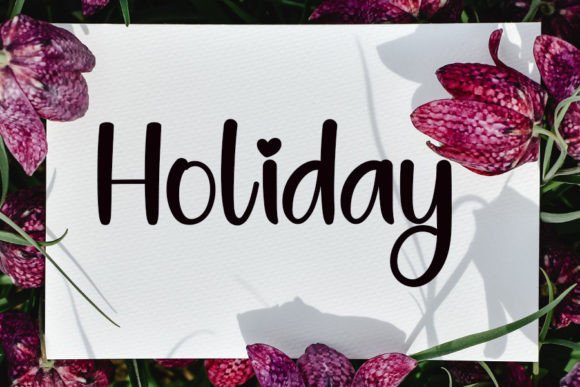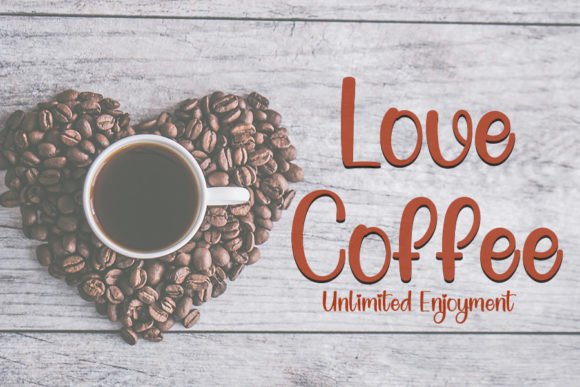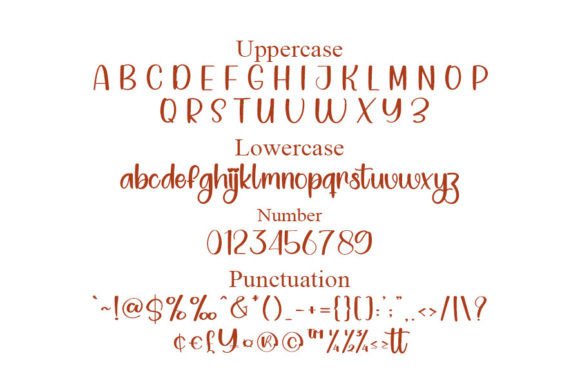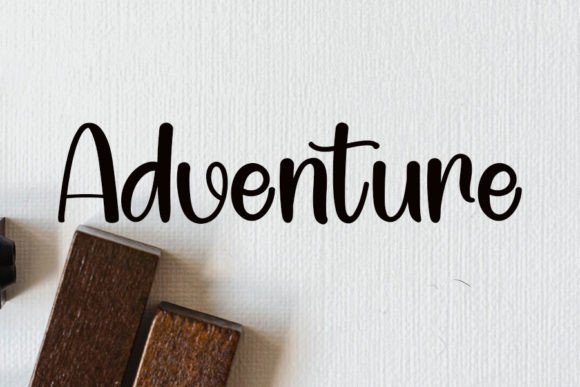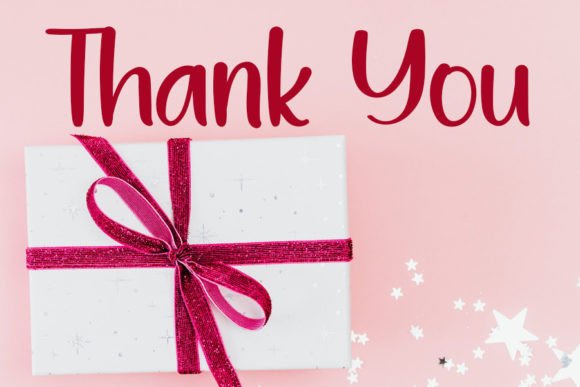
Simple Paper Font
A Trendy Handwritten Script with Timeless Elegance
Simple Paper Font is a trendy handwritten script that merges a contemporary atmosphere with the elegance of timeless classic calligraphy. With its impeccable form and balanced strokes, this font is designed to bring a refined and sophisticated touch to any of your design projects. Whether you’re creating wedding invitations, logos, branding materials, or social media content, the Simple Paper Font adds a romantic and elegant flair to your designs.
Perfect for Wedding Invitations and Special Occasions
For wedding invitations and other special occasion stationery, the Simple Paper Font is an ideal choice. Whether you’re designing RSVP cards, thank-you notes, or save-the-dates, this font provides an elegant, romantic touch to your designs. Its classic calligraphy-inspired strokes bring a sense of luxury and timeless beauty, making it perfect for weddings, anniversaries, and other special events. The Simple Paper Font ensures your special occasion materials are both charming and sophisticated.
Ideal for Logos and Branding Projects
For logos and branding projects, the Simple Paper Font offers a unique, refined style that enhances your brand identity. Whether you’re designing a luxury brand logo, personal brand, or corporate materials, this font adds an artistic, premium feel to your branding. The Simple Paper Font is ideal for businesses in industries like fashion, beauty, and lifestyle, providing a distinctive, elegant touch that helps your brand stand out.
Great for Greeting Cards and Invitations
For greeting cards and invitations, the Simple Paper Font adds a romantic and timeless touch to your designs. Whether you’re creating birthday cards, thank-you notes, or holiday greetings, this font ensures your cards look luxurious and personalized. Its delicate strokes and beautiful form make it perfect for both formal and casual occasions, ensuring your designs leave a lasting impression with their elegance and sophistication.
Ideal for Product Packaging and Labels
For product packaging and labels, the Simple Paper Font adds a premium, refined look to your designs. Whether you’re designing product labels, gift packaging, or seasonal items, this font adds a personalized and elegant touch to your branding. The Simple Paper Font is perfect for luxury products, artisan goods, and custom gifts, ensuring your products stand out with an exclusive and timeless appeal.
Versatile, Legible, and Elegant
Despite its delicate handwritten design, the Simple Paper Font remains legible and easy to use. Its well-spaced characters and consistent strokes ensure that your text remains clear and readable, even for longer passages or smaller sizes. Whether you’re using it for headlines, captions, or body text, this font strikes the perfect balance between creativity and readability, making it suitable for a wide range of design applications, from print to digital media.
Add Elegance and Timeless Beauty to Your Designs with Simple Paper Font
If you’re looking for a stylish handwritten font that adds a romantic, elegant touch to your designs, the Simple Paper Font is the perfect choice. Whether you’re designing wedding invitations, logos, greeting cards, or social media posts, this font will help you create memorable, refined designs that stand out. Let the Simple Paper Font bring a timeless, graceful touch to your projects and leave a lasting impression with its elegance and sophistication.